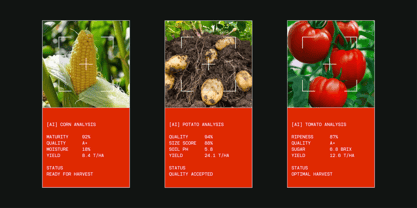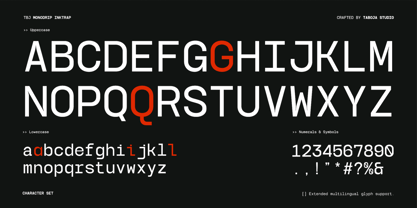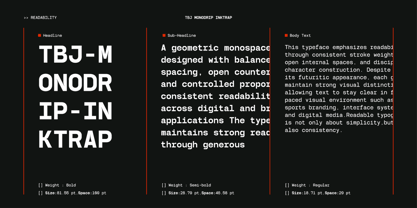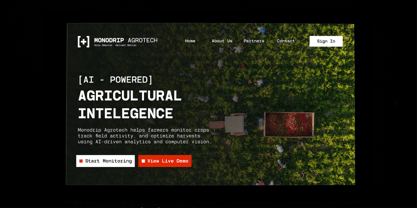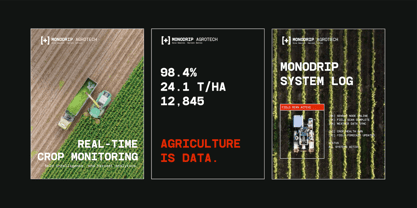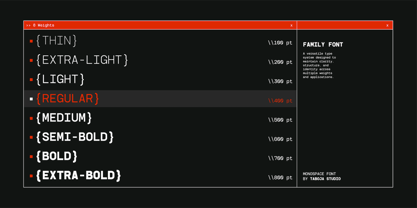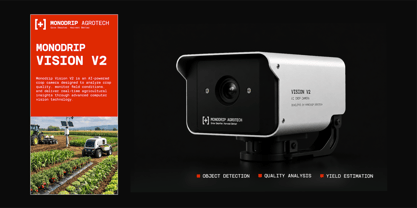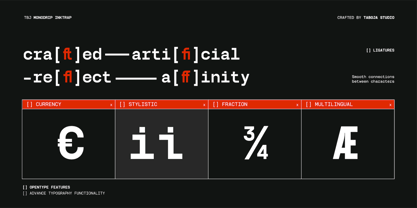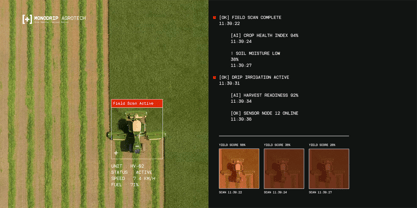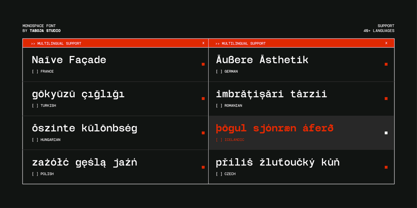
TBJ Monodrip Inktrap
La famille de polices TBJ Monodrip Inktrap a été conçue par Yusilo Oktaprima Ardani et publiée par Taboja Studio. TBJ Monodrip Inktrap contient 8 styles et options de package familial. En savoir plus sur cette famille
TBJ Monodrip is an inktrap monospace typeface built for the reality of small size code and terminal text, where ink traps have always solved the problem tight joints create at low resolution. It carries that ink trap tradition into a fixed width grid, engineered so every character holds its shape instead of blurring into its neighbors. Eight weights, from Thin to Extra Bold, give it a working range most monospace fonts skip entirely.
The ink traps cut into the inside corners of each letterform, keeping strokes distinct at the exact spot where curves and straight edges meet and small monospace text usually clogs. Every glyph sits on the same fixed width, so columns of code, tables, and terminal output stay aligned without switching to a substitute font that only holds up at Regular weight. Moving from Thin to Extra Bold, the ink traps scale with the stroke, so the heavier weights stay open instead of collapsing into dark knots.
Monodrip is built first for code editors, IDE themes, and terminal interfaces, where fixed width alignment and small size clarity matter more than style. It moves just as easily into technical documentation, API references, and developer dashboards, and works in less expected places too, like hardware packaging and conference badge systems for engineering focused brands.
At TBJ, we build typefaces that solve a reading problem before they solve a style problem. Monodrip is engineered legibility for people who spend their day inside a monospace grid.